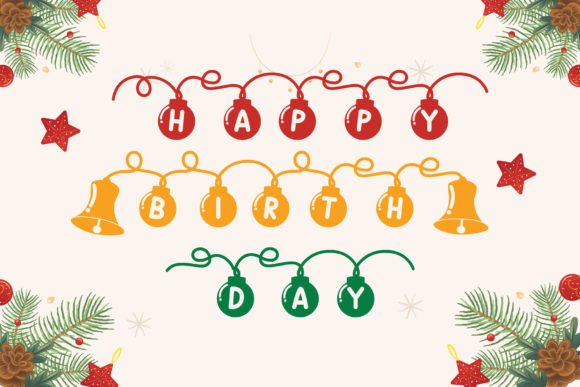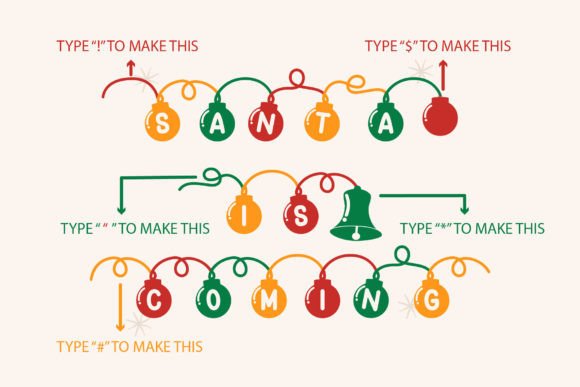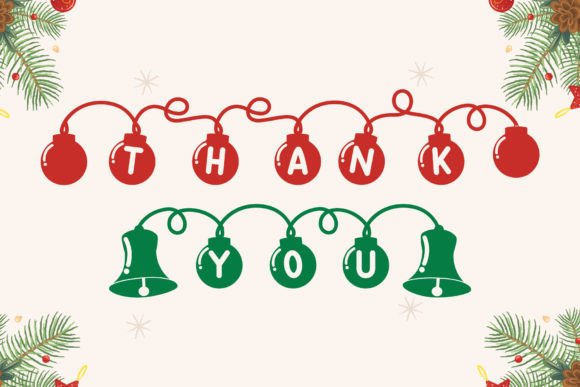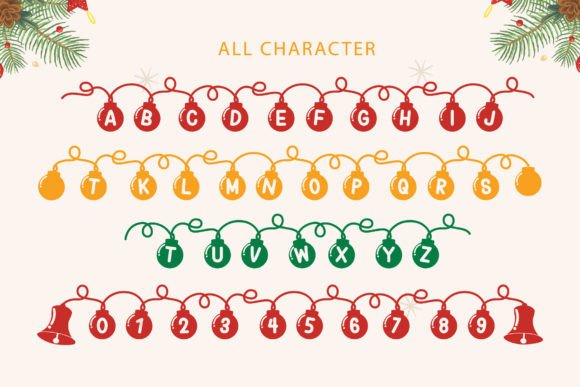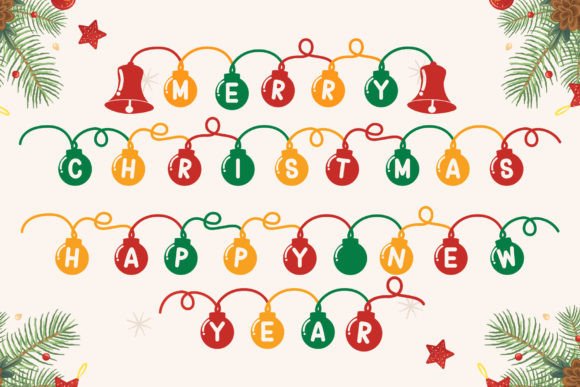
Balls Christmas Font: A Festive and Fun Decorative Display Font for the Holiday Season
Are you looking for a unique and eye-catching font to make your Christmas designs stand out? Look no further than the Balls Christmas Font! This beautiful and festive decorative display font is perfect for creating a wide range of holiday-themed projects, from cute t-shirts and stickers to cover books, children’s books, and social media posts.
Inspired by the Magic of Christmas
The Balls Christmas Font is inspired by the twinkling stars and lights that make Christmas so magical. The font’s design features rounded, ball-like shapes that evoke the feeling of festive decorations and lights. The result is a font that is both fun and sophisticated, making it perfect for a wide range of design projects.
The Balls Christmas Font is incredibly versatile, making it perfect for a wide range of design projects. Here are just a few ideas to get you started:
- T-shirts and hoodies: Create festive holiday apparel that’s sure to be a hit with friends and family.
- Stickers and labels: Add a personal touch to your holiday gifts and decorations with custom stickers and labels.
- Cover books and children’s books: Create eye-catching book covers that will stand out on store shelves.
- Social media posts: Add some holiday cheer to your social media posts with festive graphics and typography.
- Holiday cards and invitations: Create custom holiday cards and invitations that will make your friends and family feel special.
Key Features of the Balls Christmas Font
Here are just a few key features that make the Balls Christmas Font so special:
- Unique and festive design: The Balls Christmas Font features a unique and festive design that’s sure to add some holiday cheer to your projects.
- High-quality design: The font is designed with high-quality, vector-based graphics that will look great in any size or resolution.
Tips for Using the Balls Christmas Font
Here are a few tips for getting the most out of the Balls Christmas Font:
- Experiment with different colors: The Balls Christmas Font looks great in a wide range of colors, so don’t be afraid to experiment and find the perfect color scheme for your project.
- Use it with other festive fonts: The Balls Christmas Font pairs well with other festive fonts, so try combining it with other fonts to create a unique and eye-catching design.
- Add some holiday graphics: The Balls Christmas Font is perfect for use with holiday graphics, such as snowflakes, holly, and mistletoe.